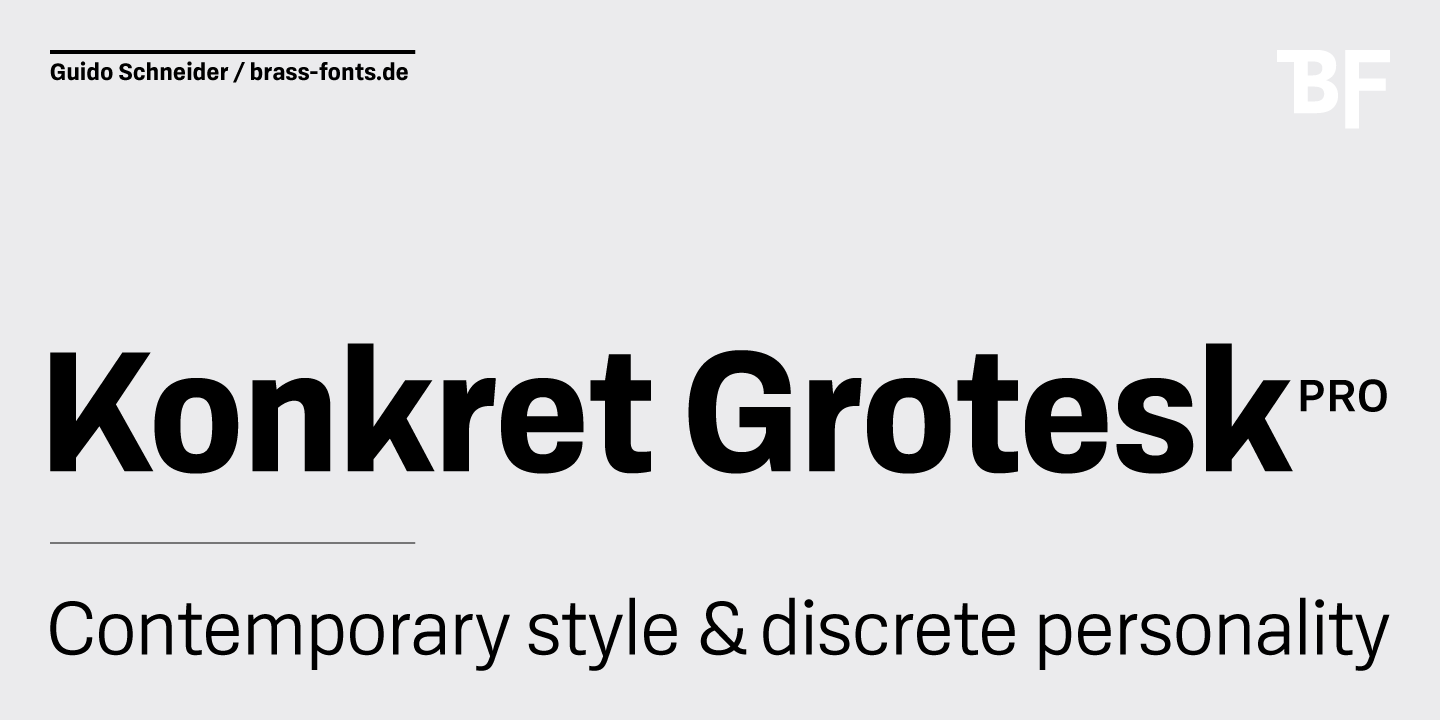
This industrial typeface is perfect for architectural firms, construction companies, engineering corporations, concrete manufacturers, urban planning agencies, industrial design studios, infrastructure projects, modern art galleries, contemporary museums, minimalist brands, technical documentation, and progressive corporate identities. The font's concrete-inspired design makes it ideal for projects that celebrate structural integrity, modernist principles, and the raw beauty of industrial materials and contemporary architecture.
BF Konkret Grotesk Pro Font is exciting because it embodies modernist philosophy and industrial strength through its geometric letterforms and brutalist-inspired character structure. The font's clean lines and structural proportions create an atmosphere of functionality, honesty, and architectural precision, making it perfect for brands that want to convey reliability, innovation, and commitment to utilitarian excellence. Its professional appearance ensures instant credibility while maintaining exceptional readability across various industrial applications.
The BF Konkret Grotesk Pro Font family includes multiple structural variations: Light Foundation, Regular Framework, Medium Structure, Bold Architecture, and Black Monolith weights, each available in standard and condensed versions. Special industrial editions feature technical alternates, architectural symbols, and engineering ornaments that enhance the font's professional appeal, providing designers with comprehensive tools for creating authentic industrial communications.
Build solid foundations with BF Konkret Grotesk Pro Font Free Download – a typeface that represents structural excellence and modernist precision. Whether you're developing architectural branding, industrial communications, or contemporary design projects, this font delivers the concrete strength and professional integrity your projects need while ensuring exceptional performance and authoritative impact across all architectural and industrial applications.